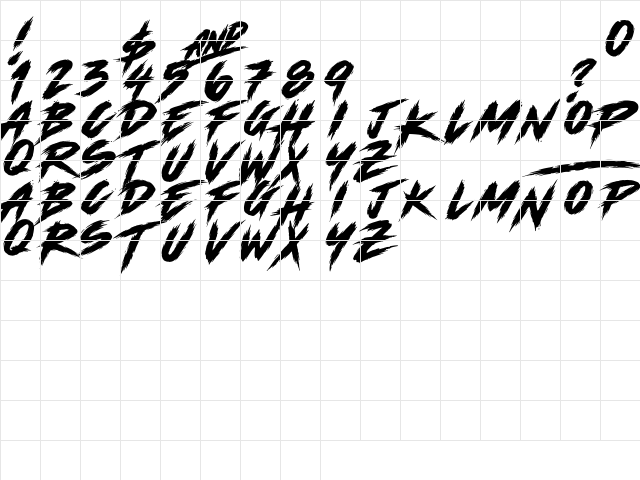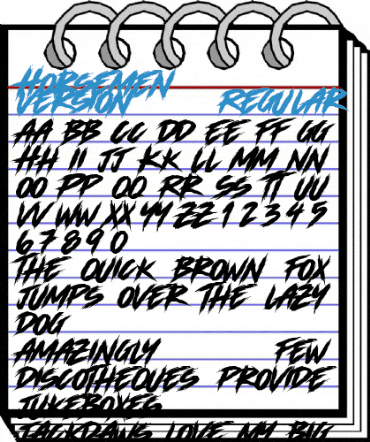
Complete Horsemen (Demo Version) Regular glyph index. Displaying only characters natively supported by Horsemen (Demo Version) Regular font.
Horsemen (Demo Version) is a composed and adaptable typeface that performs quietly and consistently across a wide range of design contexts.